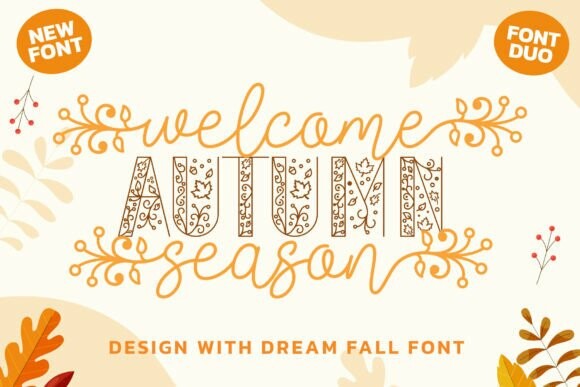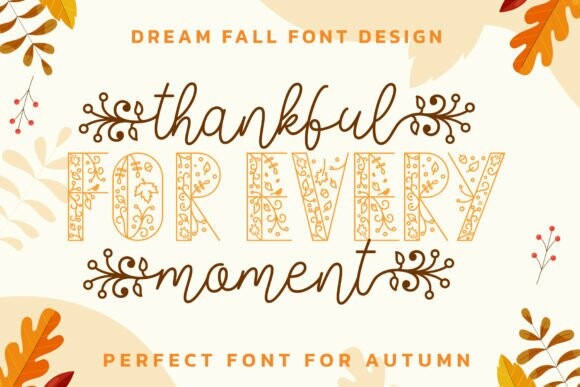
Dream Fall Duo Font
Designer: Hoperative Design
Dream Fall Font is a beautiful and elegant autumn concept font duo with two styles – script and display. This font is inspired by the autumn season, which makes it suitable for adorable and kids’-related products with a cozy, fall theme.